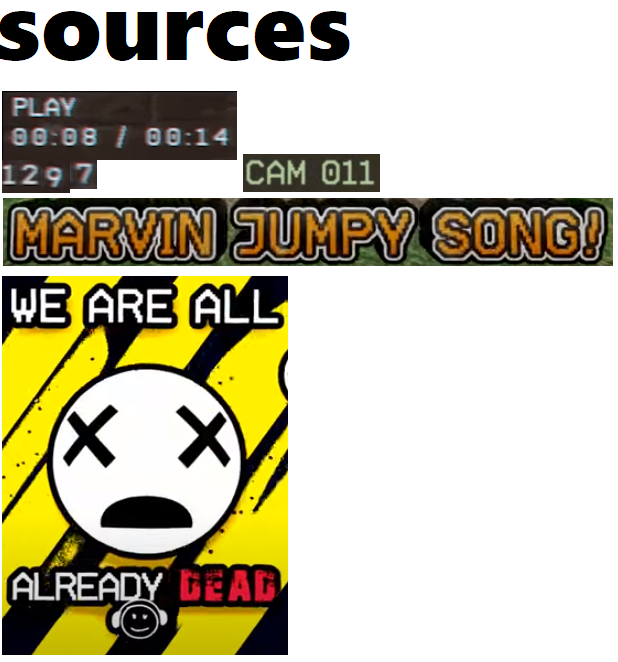
• Originally called "SMLARG VCR".
This font is meant to recreate the VCR font seen in the SML Wiki ARG, one unlike any other.
This is the proportional version of the font.
[this is indeed real, though the font has only been spotted on their videos.]
The font he uses might be "Videotype".